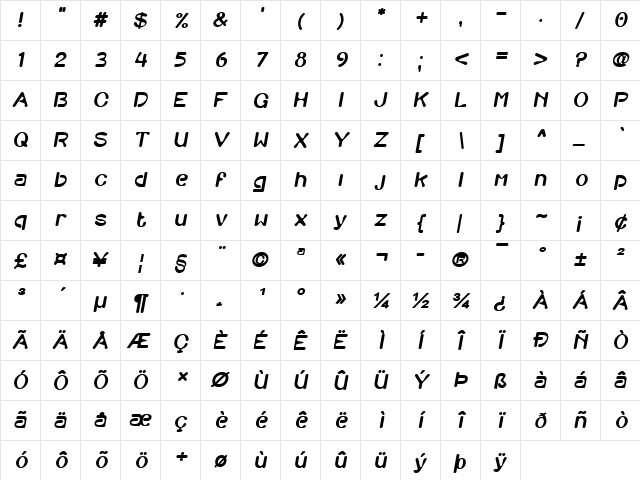
DS-Orange Bold Italic Font Preview
Design Context for DS-Orange Typeface
DS-Orange takes a measured approach to typography — its balanced proportions and neutral character make it a reliable workhorse for both digital and print work. The dynamic lean of this cut emphasises speed and emphasis in any layout. Its bold stroke weight gives it real presence on the page.